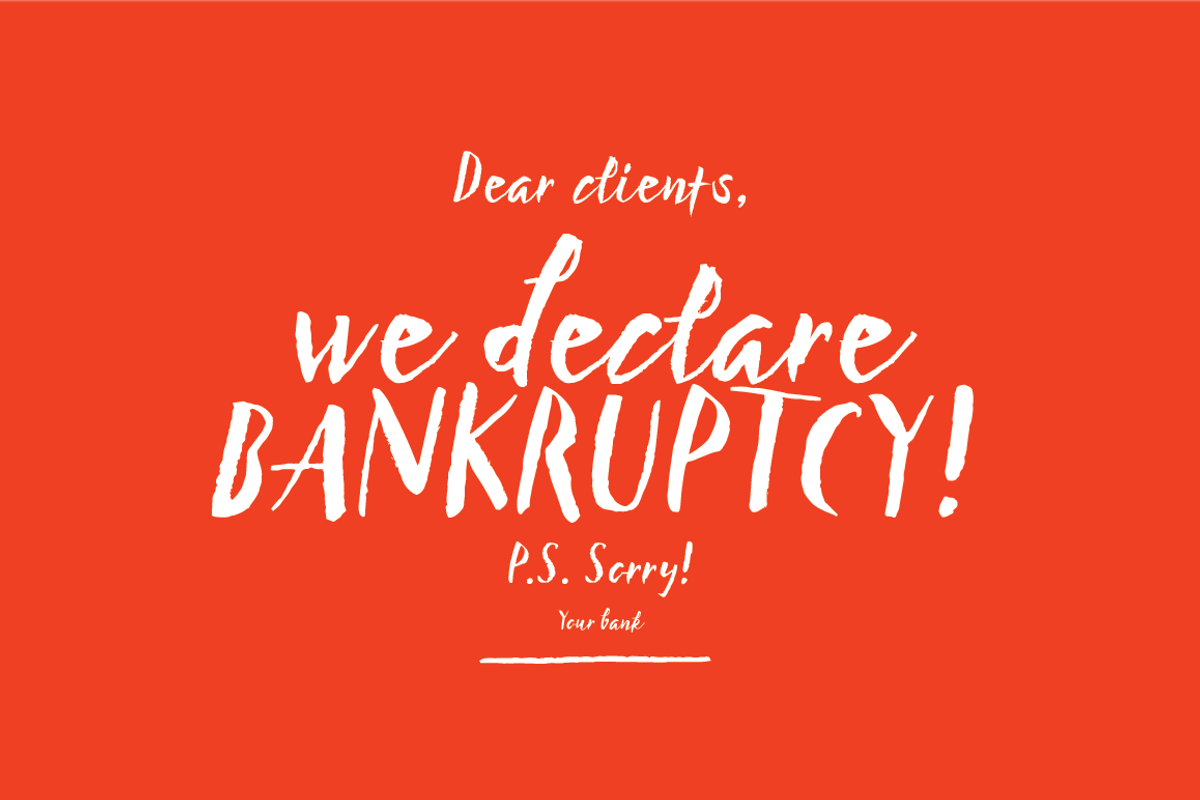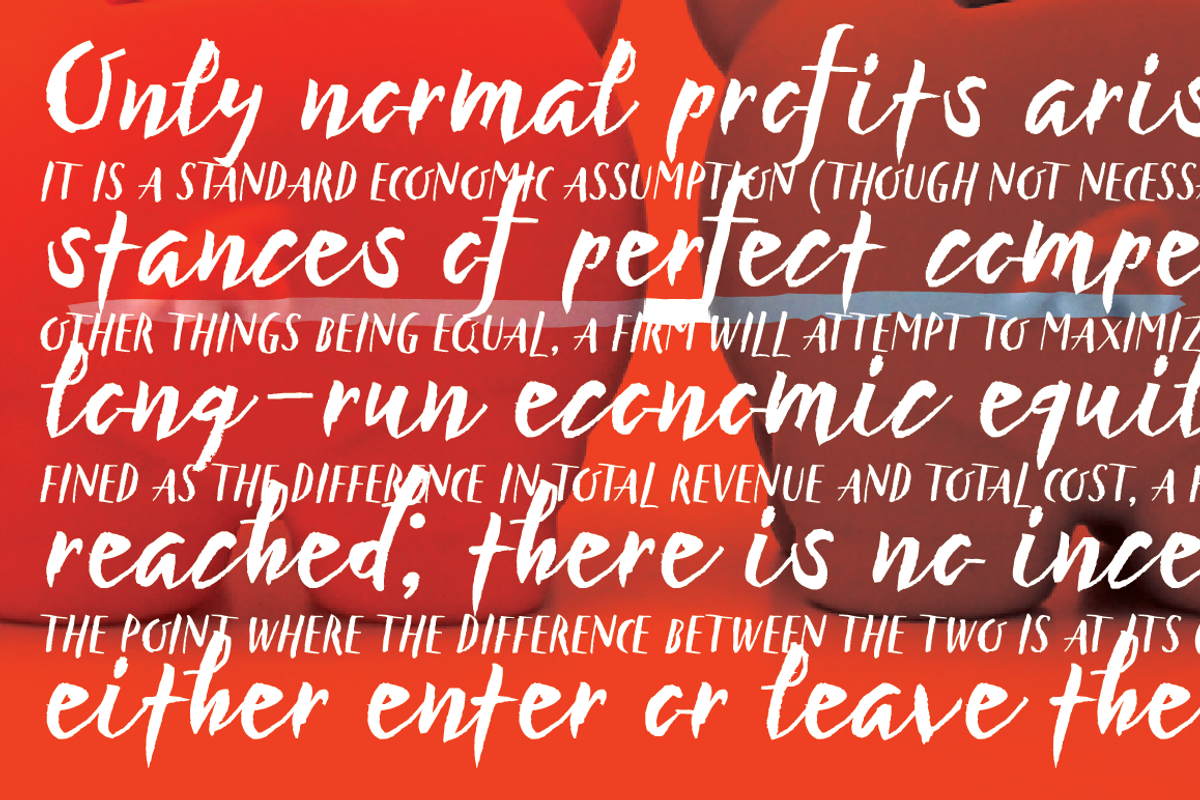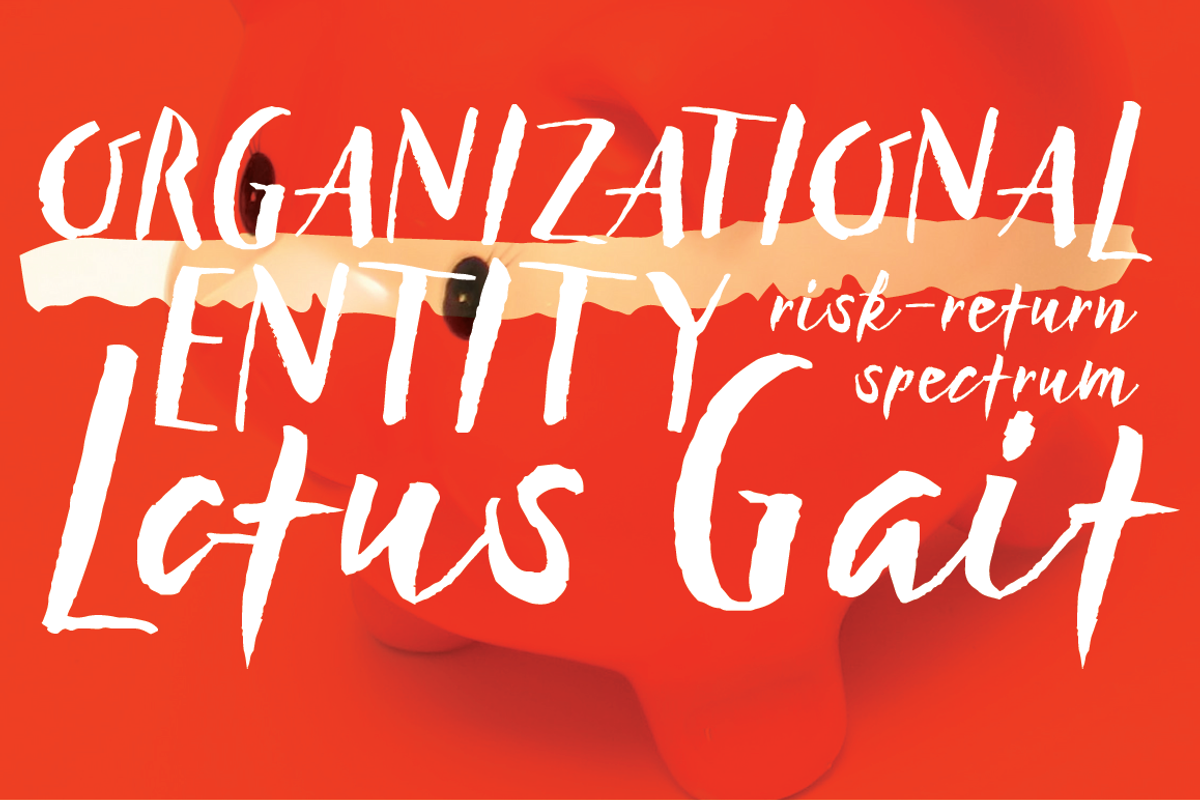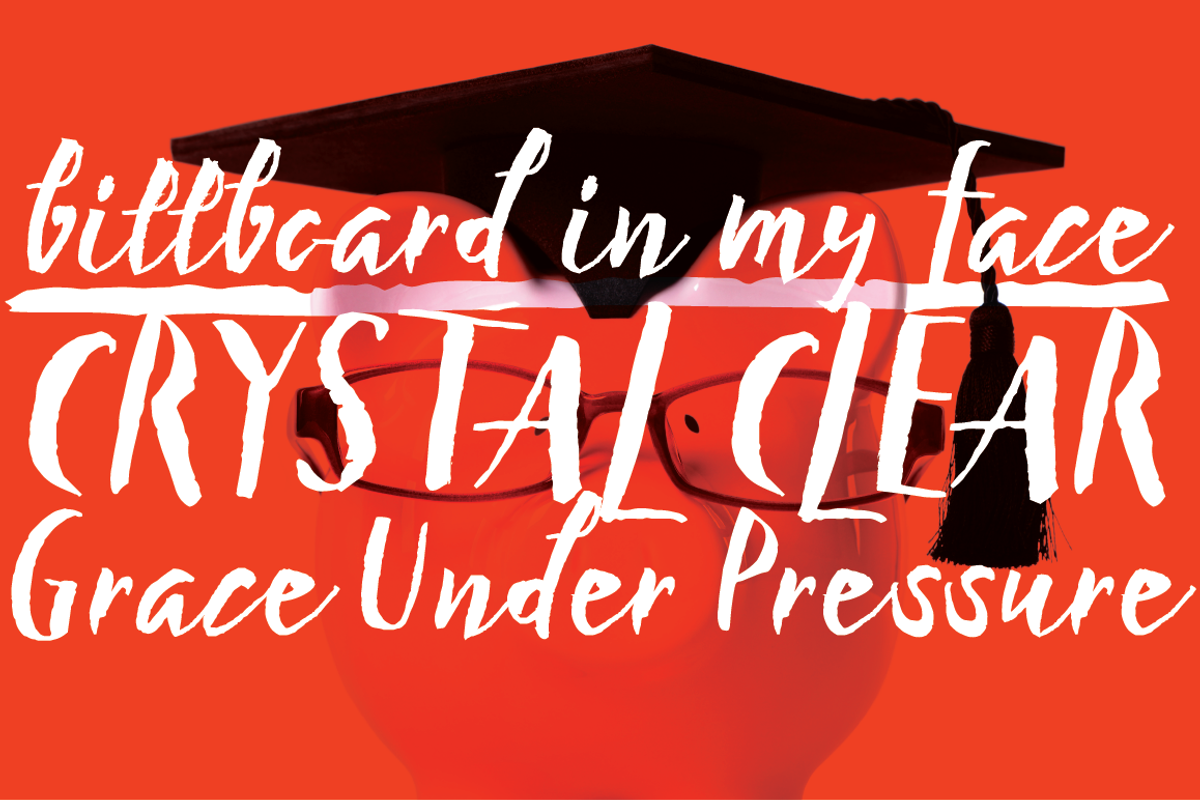
Businessland Font Family
Businessland Font Family by Tour de Force FF is a font selected for branding, posters, packaging, typography.
- Contains 372 glyphs including codepage support for Eastern Europe and Baltic countries.
- Businessland is script family that combines elegant and rough look of the characters.
Why Businessland Font Family is worth a look
Businessland Font Family by Tour de Force FF fits naturally into Branding, posters, packaging, typography.